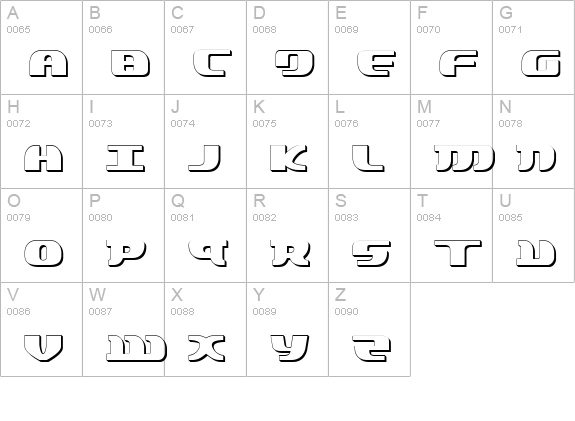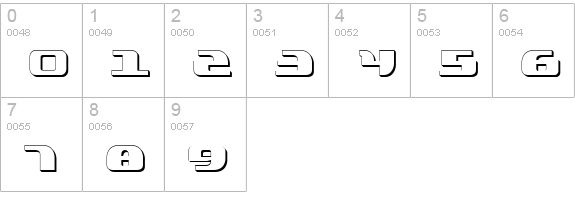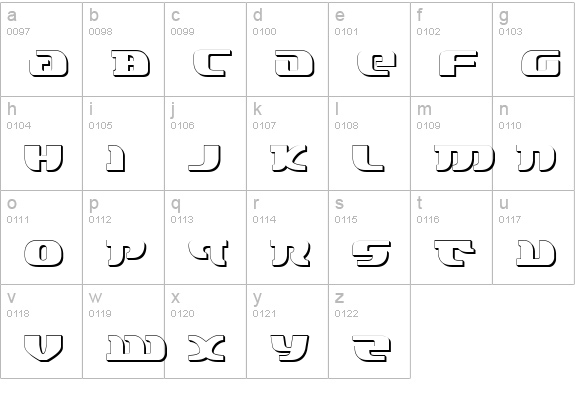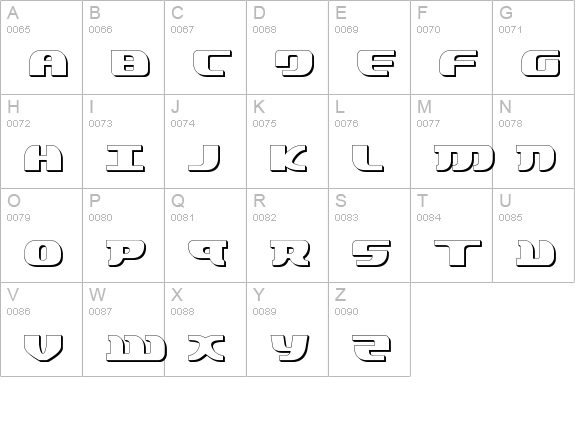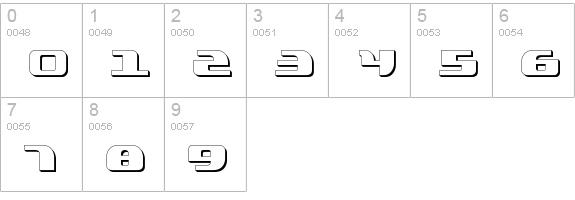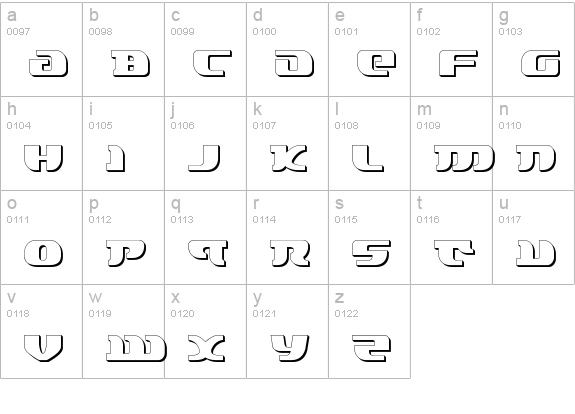
The Lord of the Sith Shadow font is a bold and commanding typeface that exudes power and darkness. With its intricate details and sharp edges, this font is perfect for creating a sense of foreboding and mystery in your designs. The deep shadows and dramatic angles of each letter make a striking statement that demands attention. Designed with a nod to the iconic Sith Lords of the Star Wars universe, the Lord of the Sith Shadow font is a must-have for any fan of the dark side. Whether you're working on a poster, logo, or other design project, this font will add a touch of sinister elegance to your work. Best of all, the Lord of the Sith Shadow font is available for free download at FontsMarket.com. Take advantage of this offer and unleash the power of the dark side in your designs today!